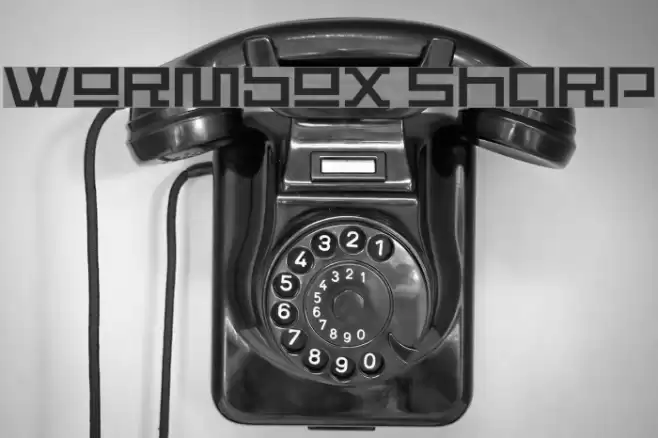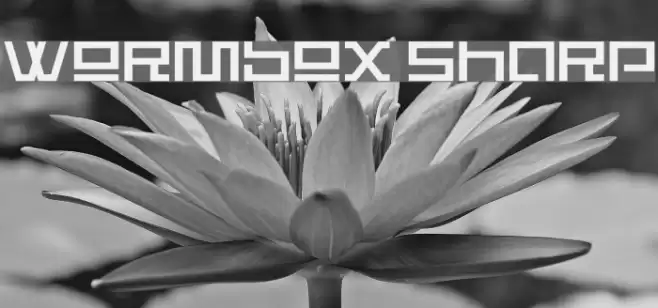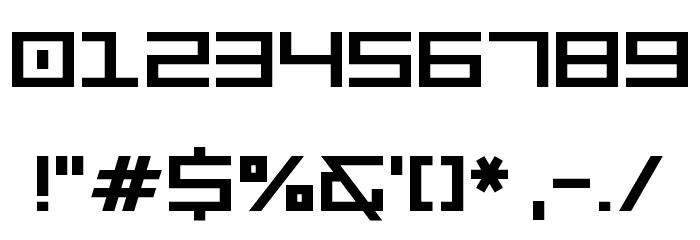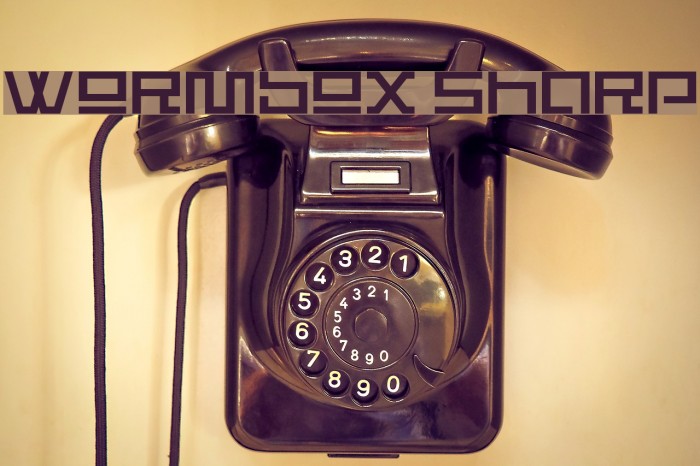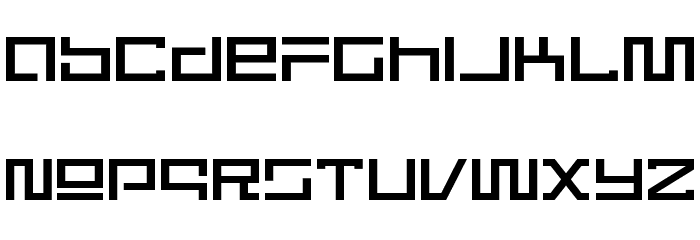
Wormbox Sharp Font
Wormbox Sharp Description
This font features a bold, geometric design with sharp, angular lines and a futuristic aesthetic. The characters are constructed with a consistent stroke width, giving them a uniform appearance. The uppercase and lowercase letters maintain a similar structure, enhancing readability while preserving a distinct style. The numerals and special characters are designed to match the overall angular theme, making them suitable for modern and tech-oriented projects. The font's unique style is both eye-catching and versatile, ideal for creating impactful headlines or logos.
A bold, geometric font with sharp, angular lines and a futuristic style from Futuristic fonts.
- Proposed Projects: Ideal for technology branding, video game titles, sci-fi posters, and modern web design.
- Overall Style: Futuristic